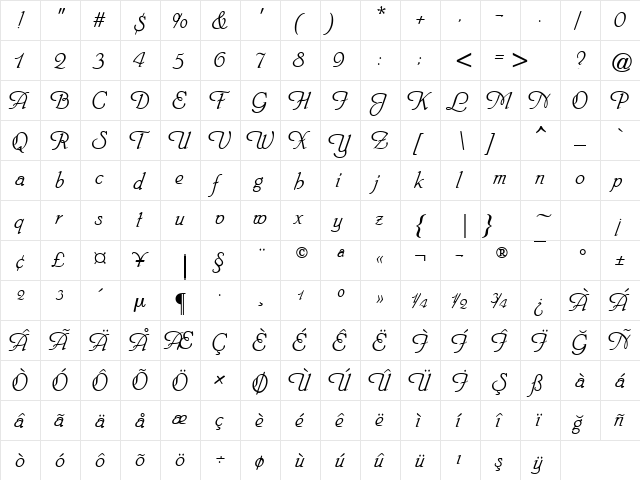
Phyllis ATT Italic
Design Context for Phyllis ATT Typeface
Phyllis ATT offers clean, dependable letterforms without strong stylistic allegiance, making it a practical choice for designers who need flexibility. The dynamic lean of this cut emphasises speed and emphasis in any layout.